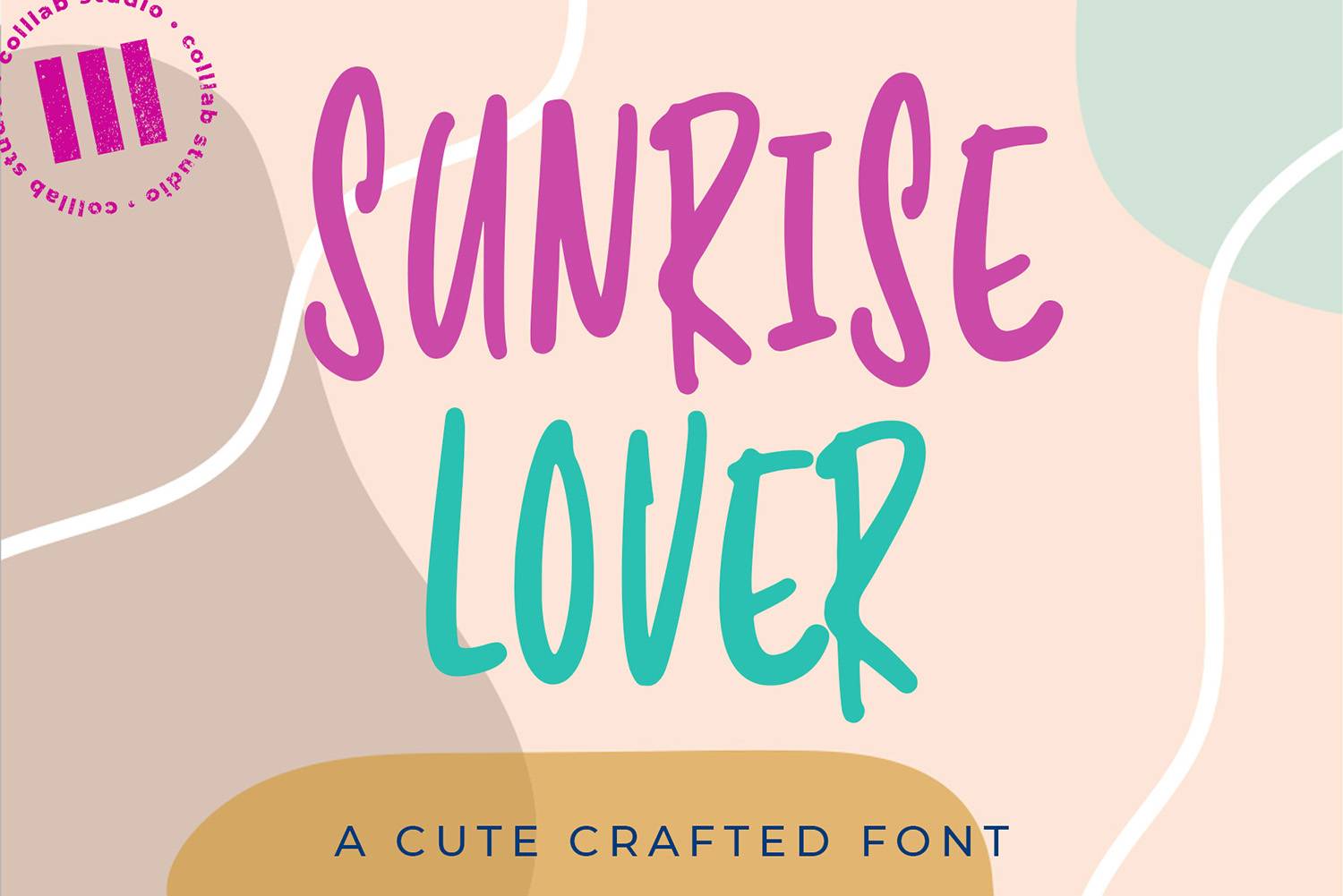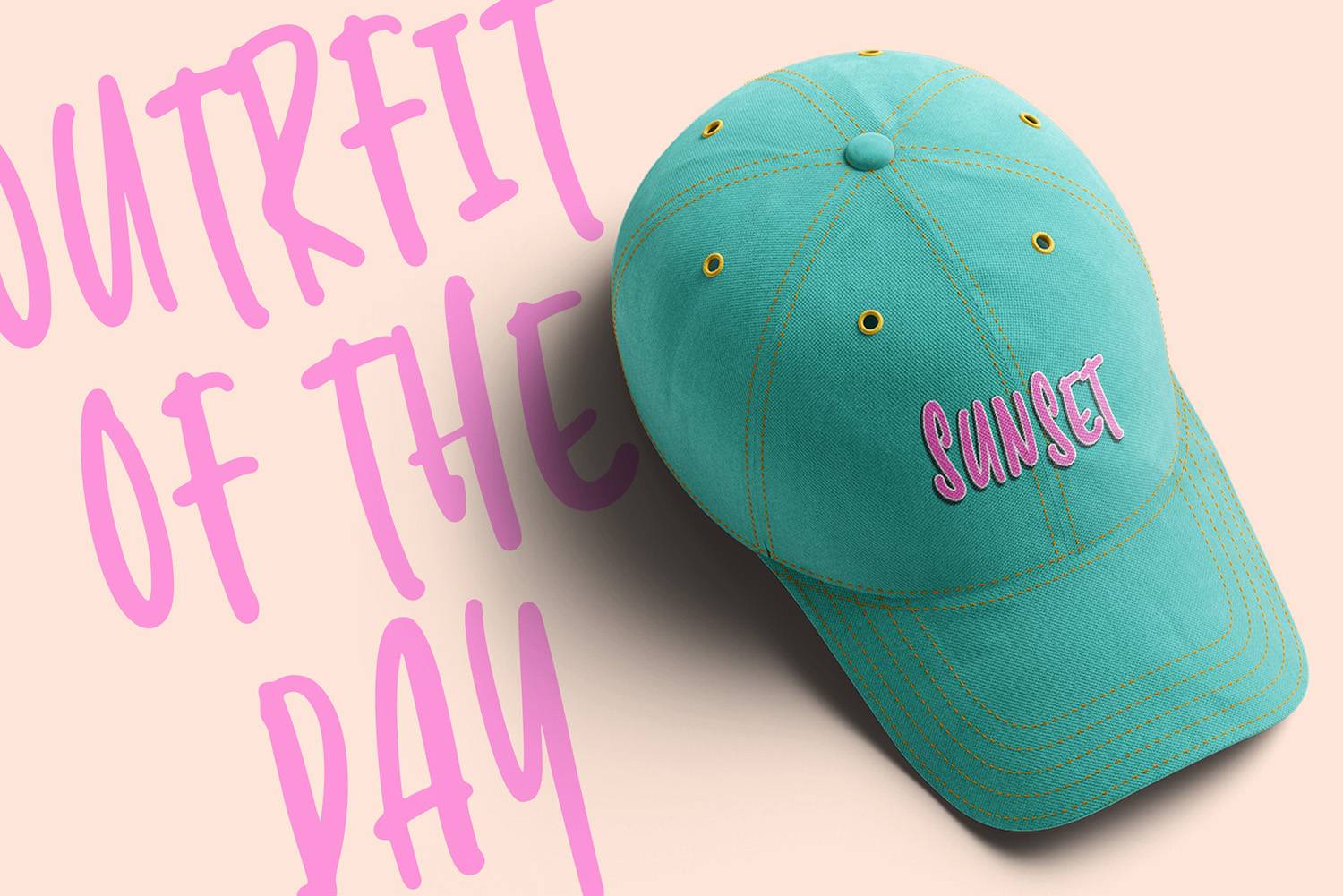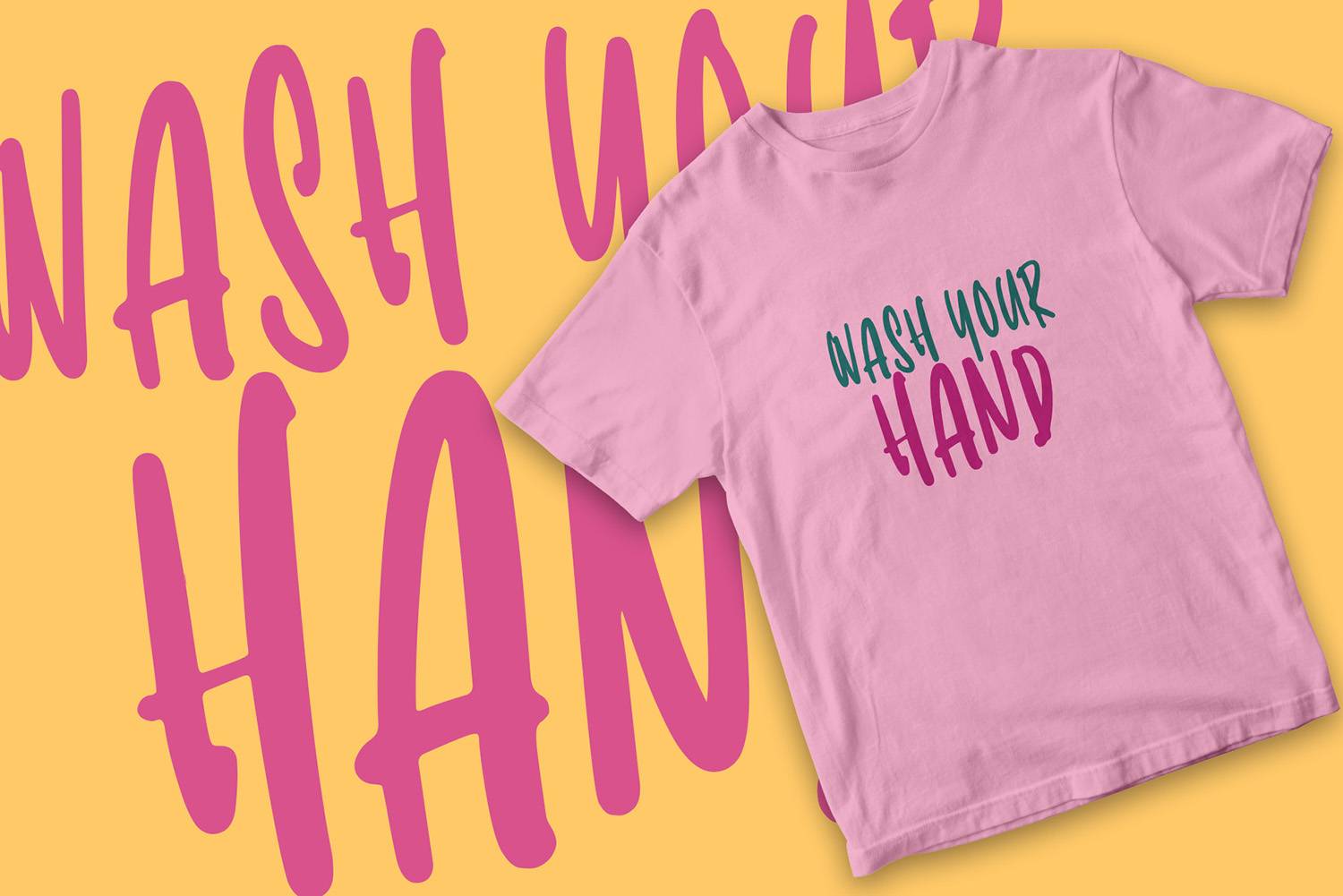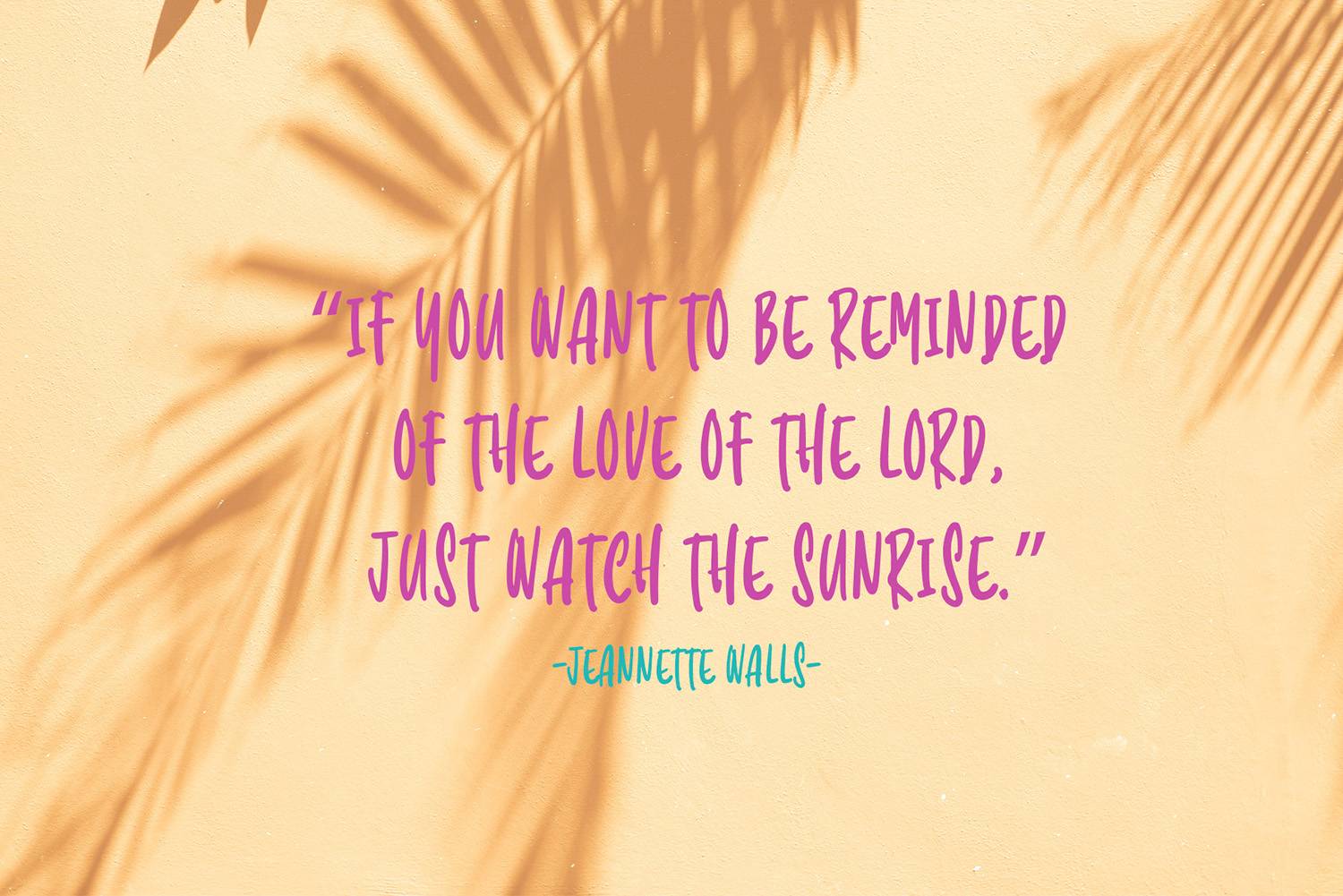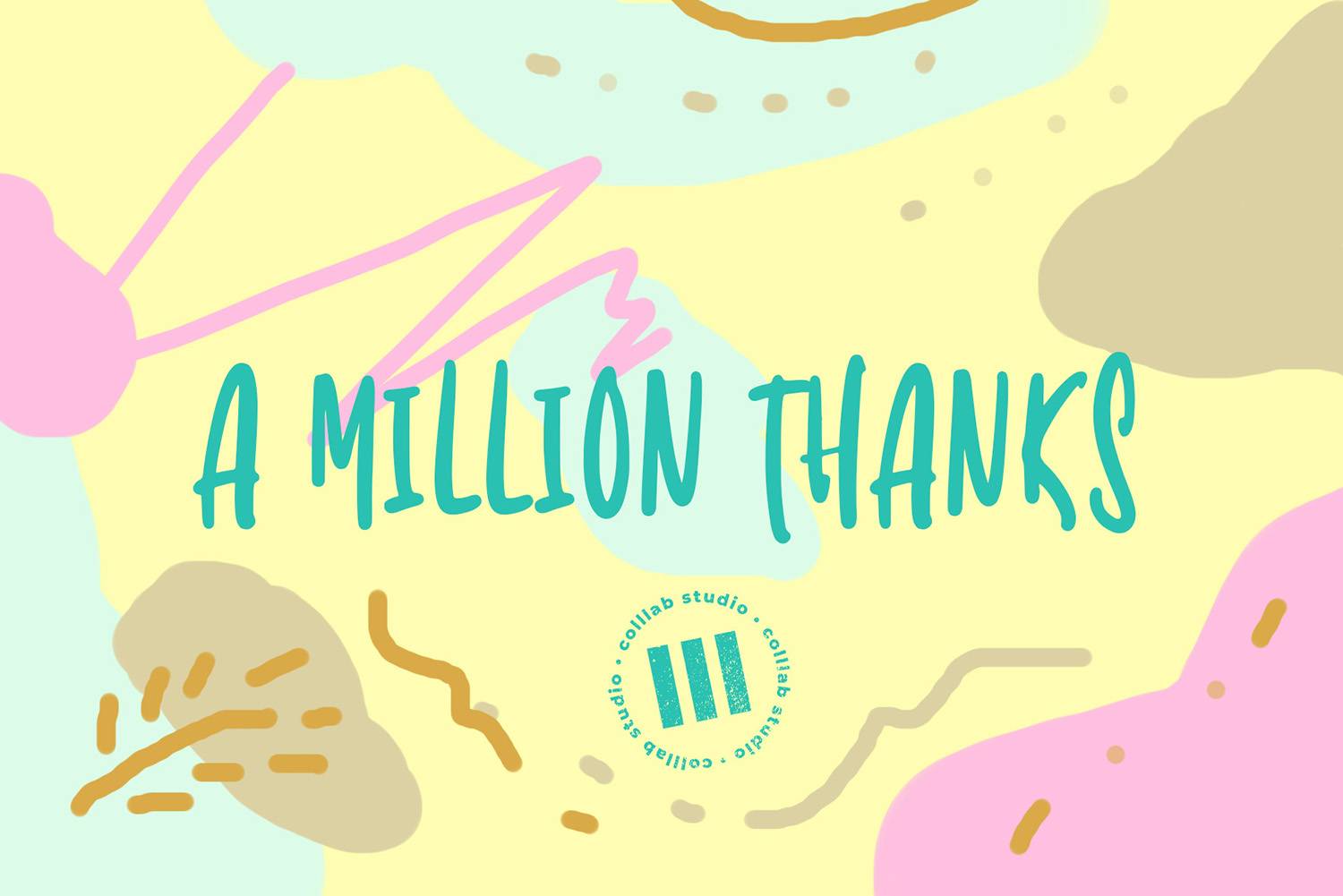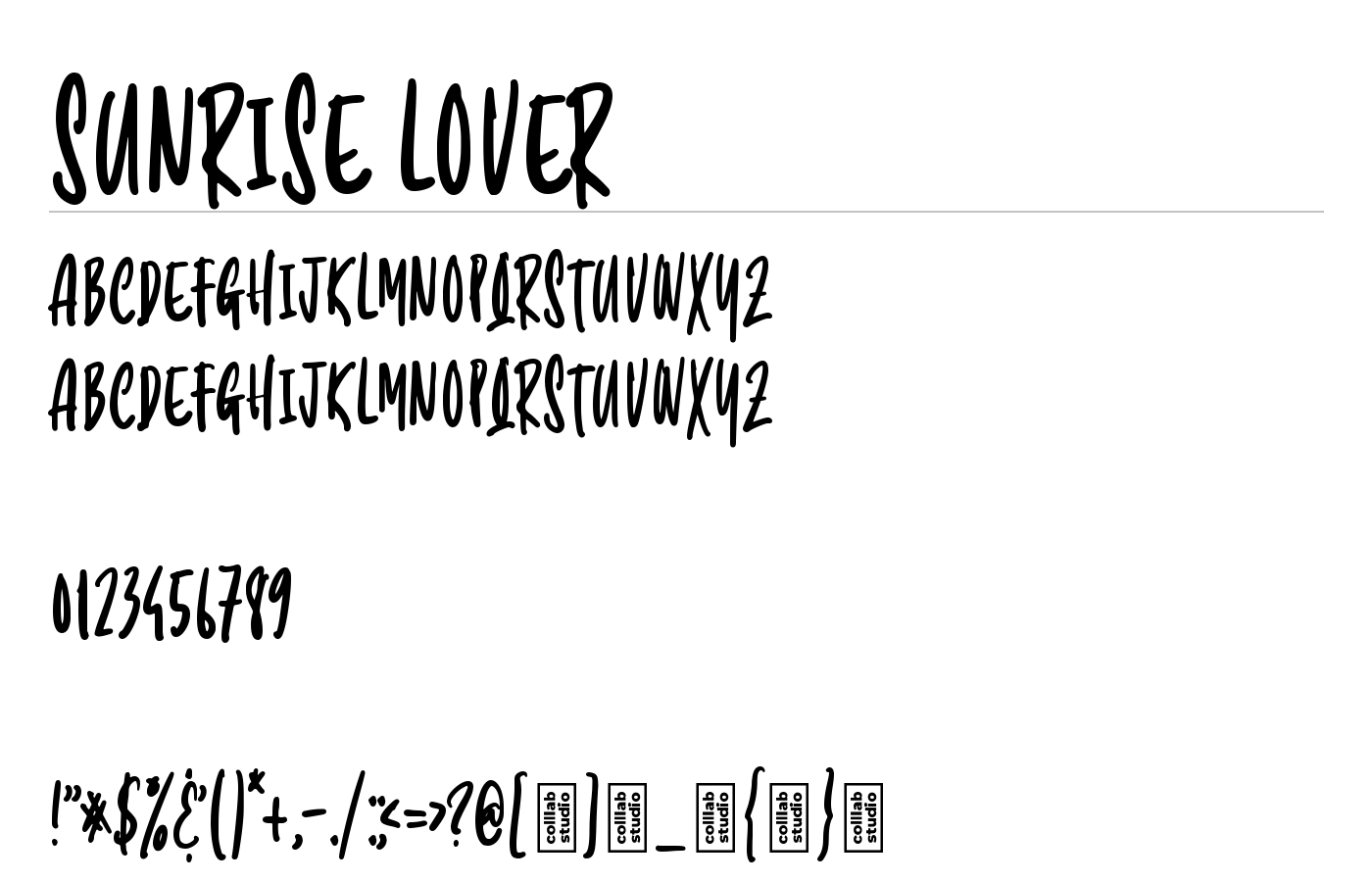
Sunrise Lover is a playful handwritten sans serif font with tall, narrow letterforms and a casual, energetic rhythm. Its slightly irregular strokes and quirky character shapes give it a friendly, approachable feel, making it perfect for informal designs, creative projects, and youthful branding. This font works well in logos, posters, and social media graphics where a lively, hand-crafted look is desired.
Sunrise Lover Font
About Sunrise Lover Font
| Font family | Sunrise Lover Font |